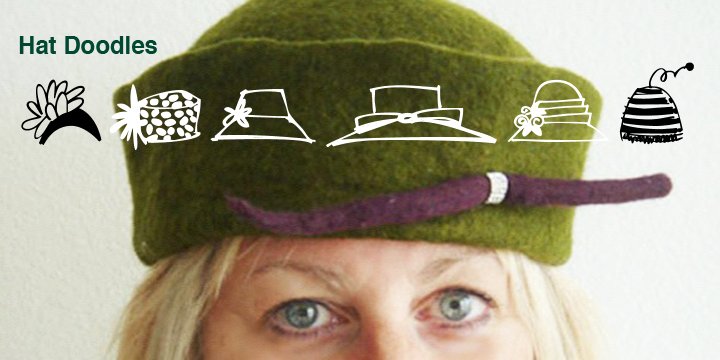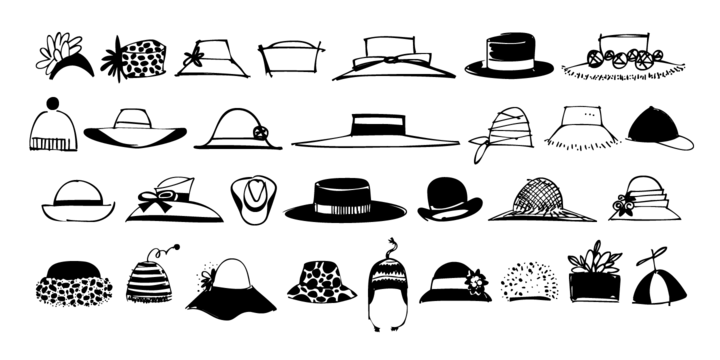
Hat Doodles (1 font)
Hat Doodles… from silly to sophisticated, a collection of 30 women’s hats. From a Summer Garden Party to the Kentucky Derby there is a hat for all occasions.
Hat Doodles is another clip art doodle font in the Outside the Line picture font collection.